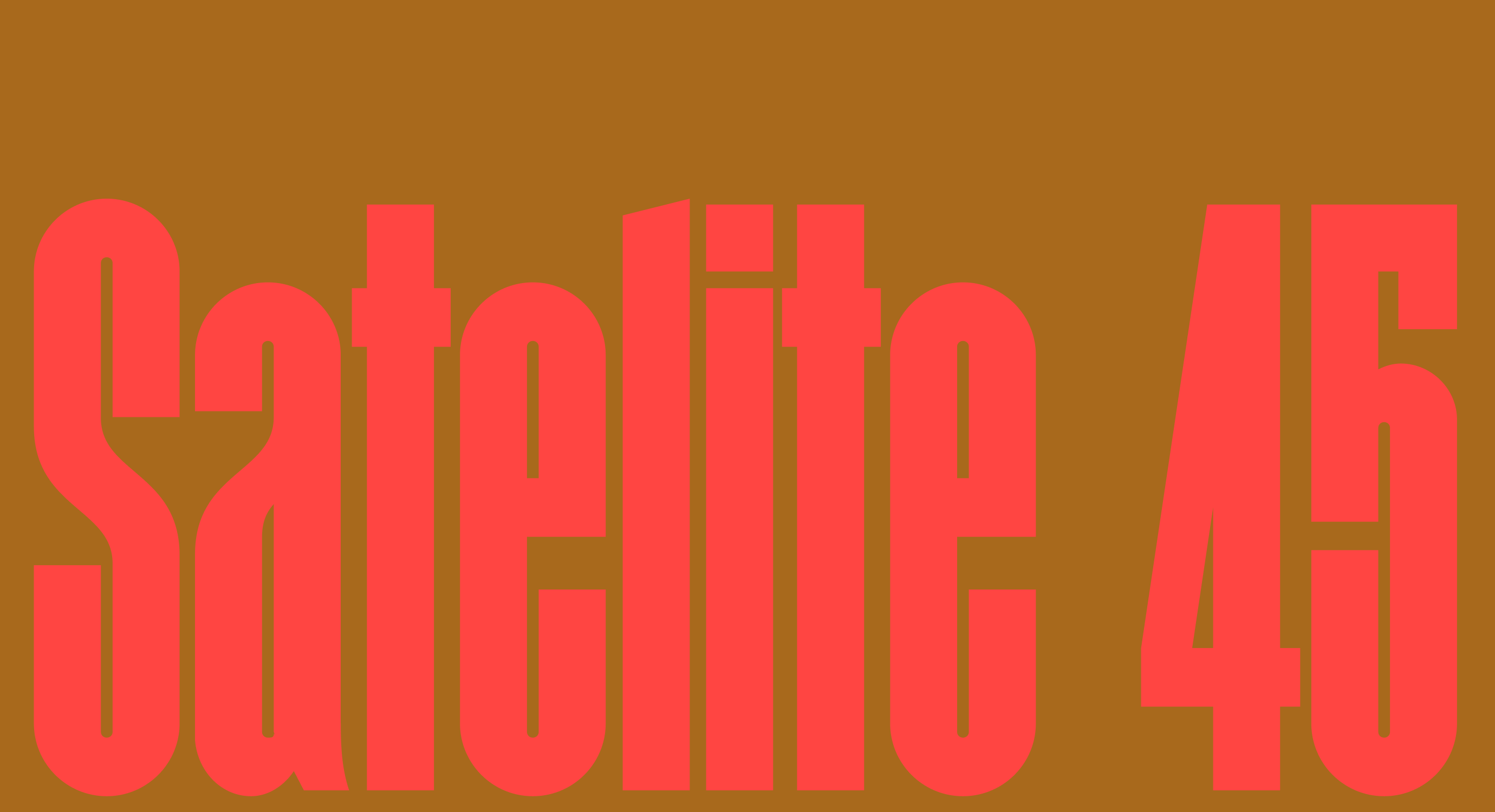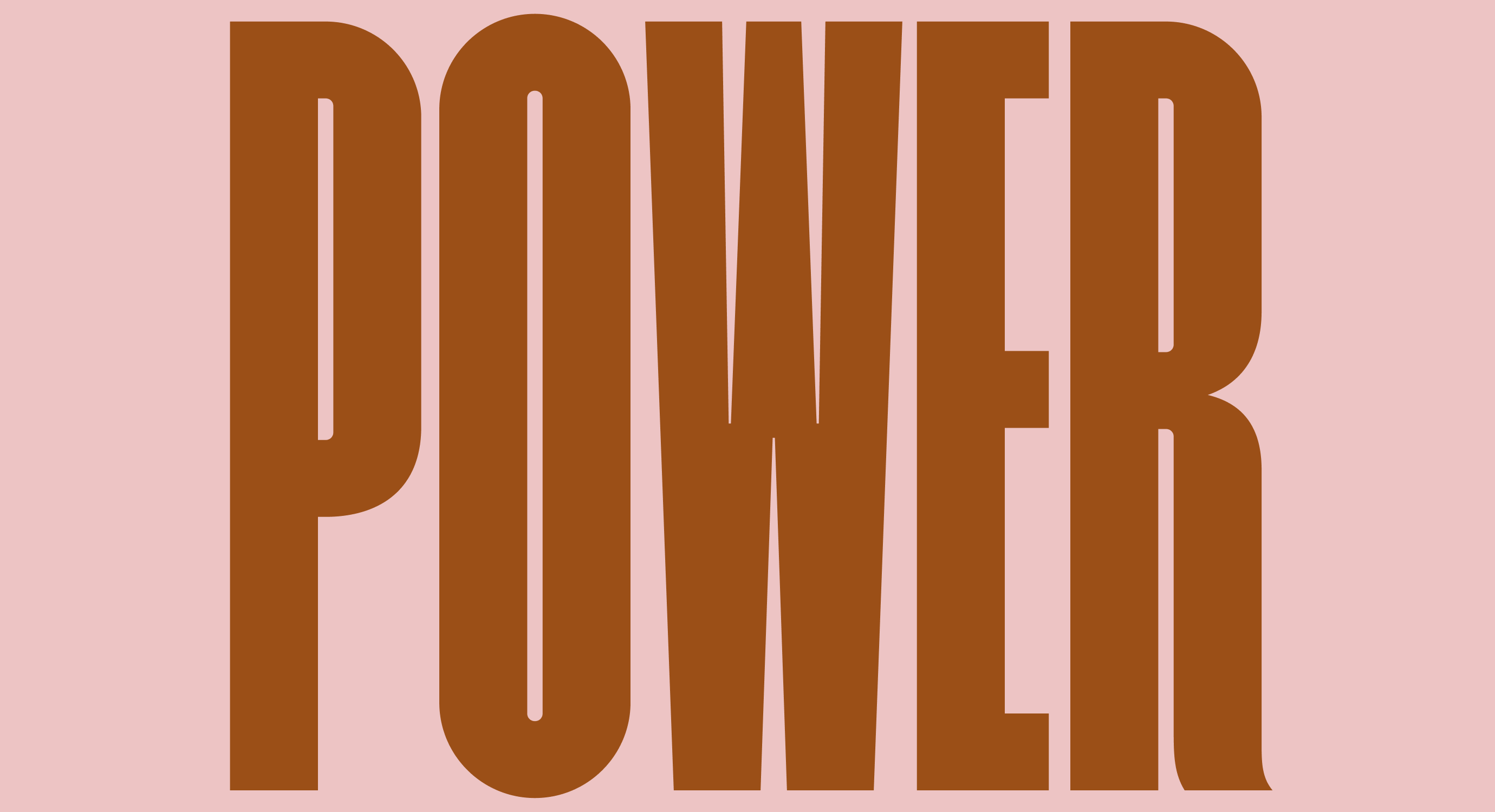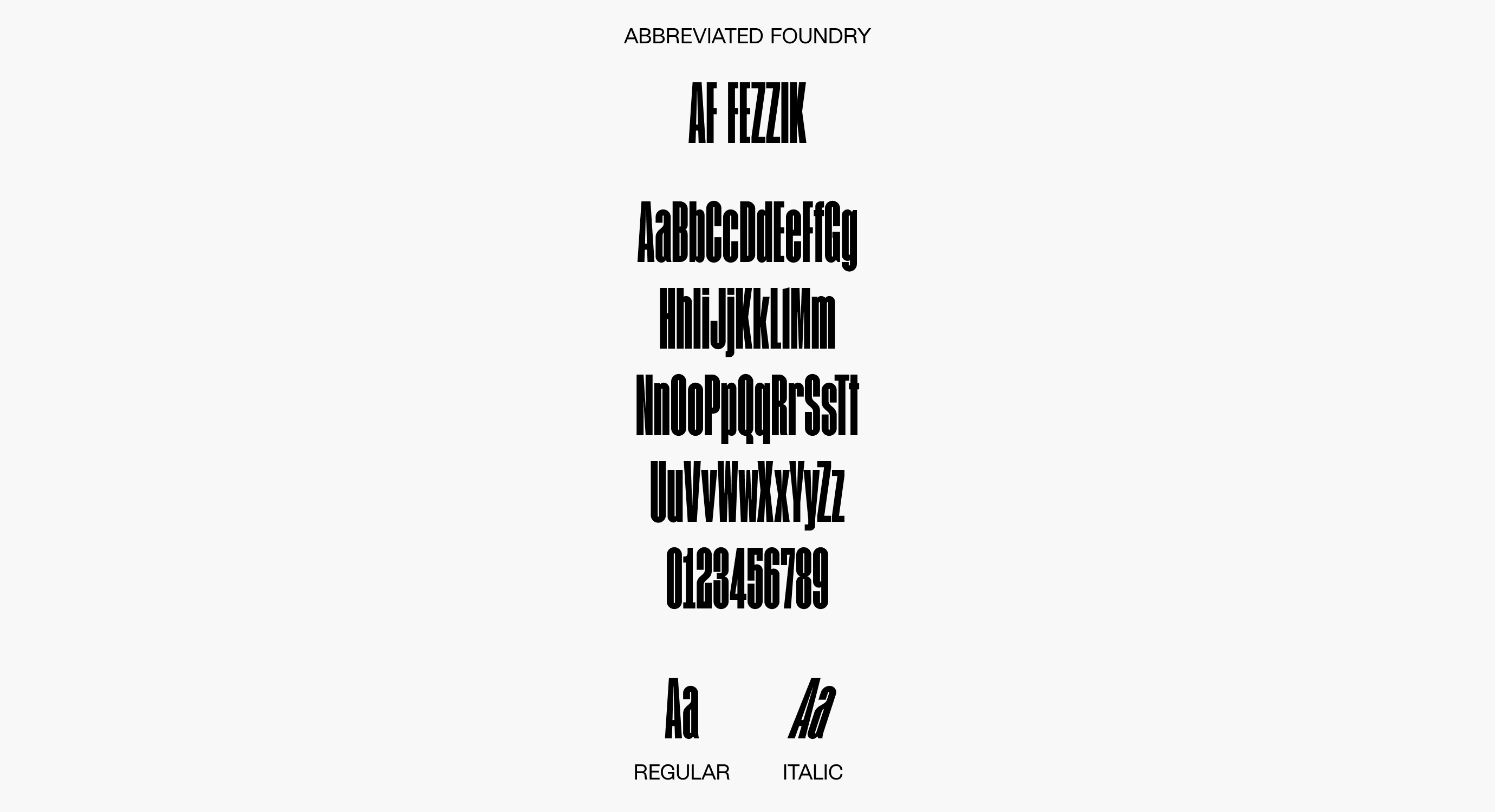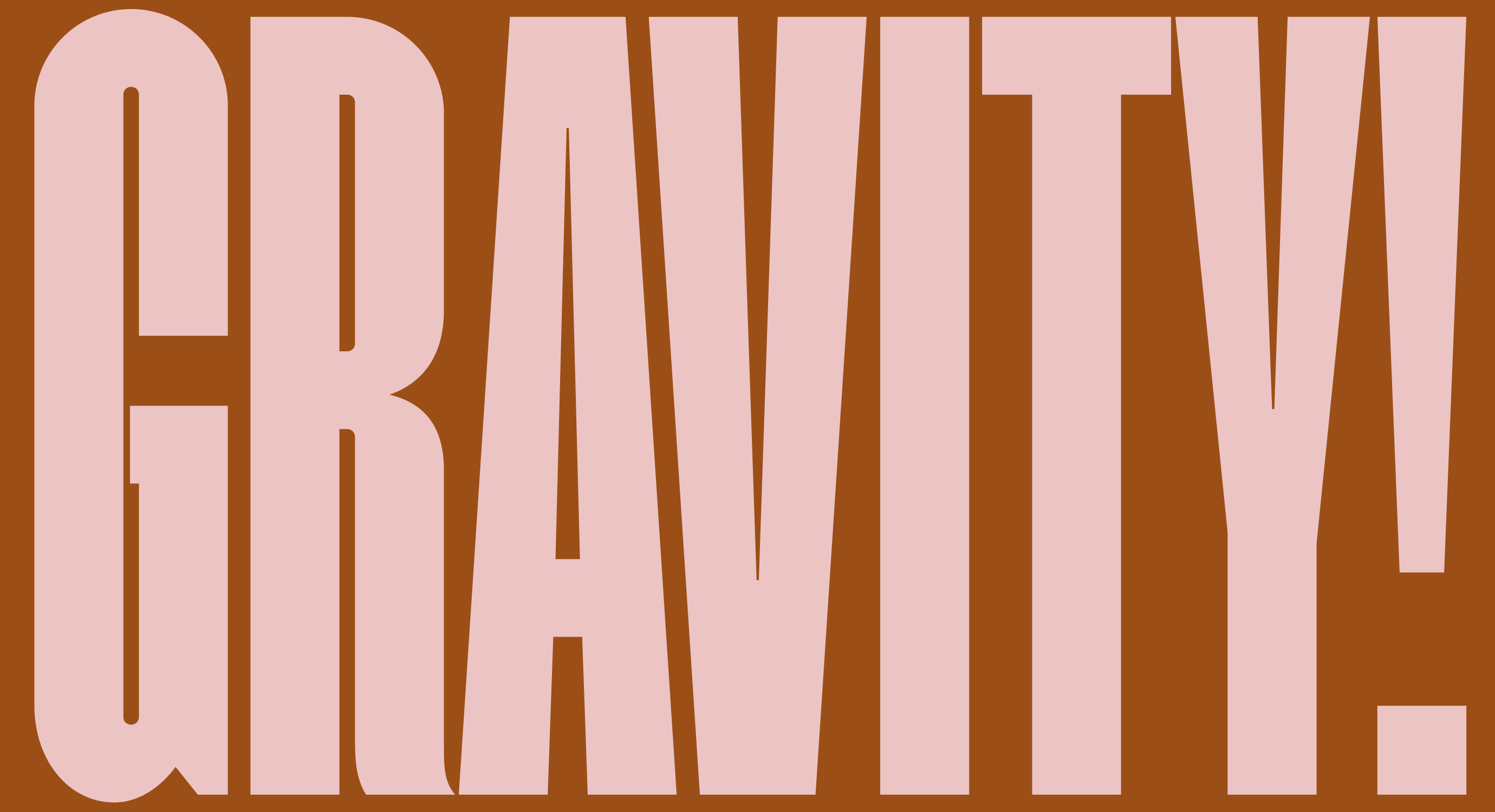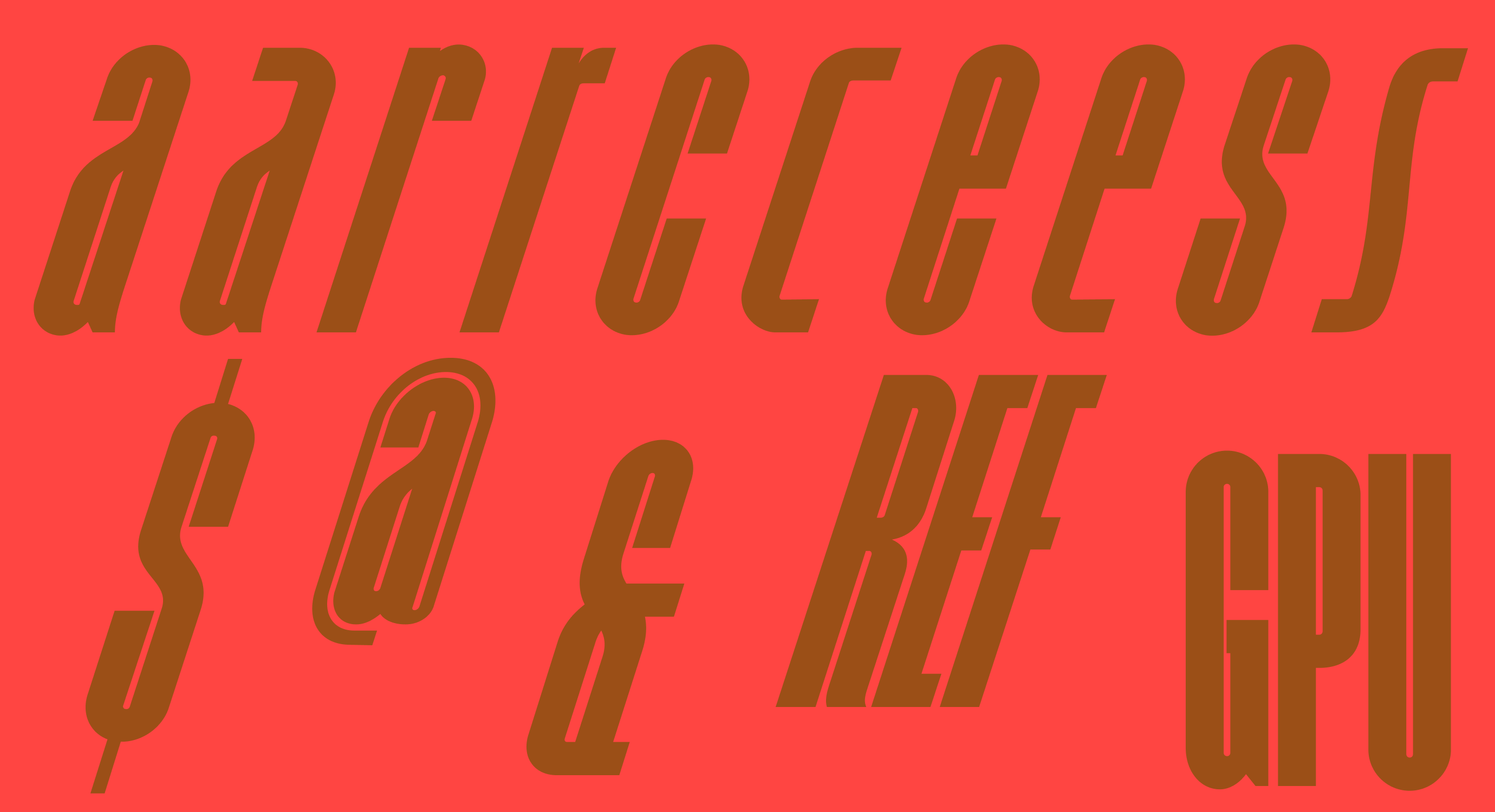
AF Fezzik
AF Fezzik was born in an anti-gravity chamber. Growing ever taller, it defies earthly constraints. Its design, forged from a set of recycled shapes, delivers a rhythmic consistency. Embrace its gargantuan might to witness your creations soar above the mundane.